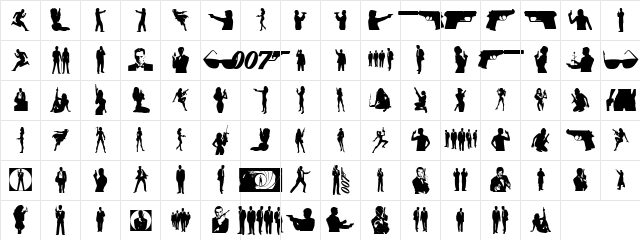
Babes & Bond Regular
Design Context for Babes & Bond Typeface
Babes & Bond is a composed and adaptable typeface that performs quietly and consistently across a wide range of design contexts.